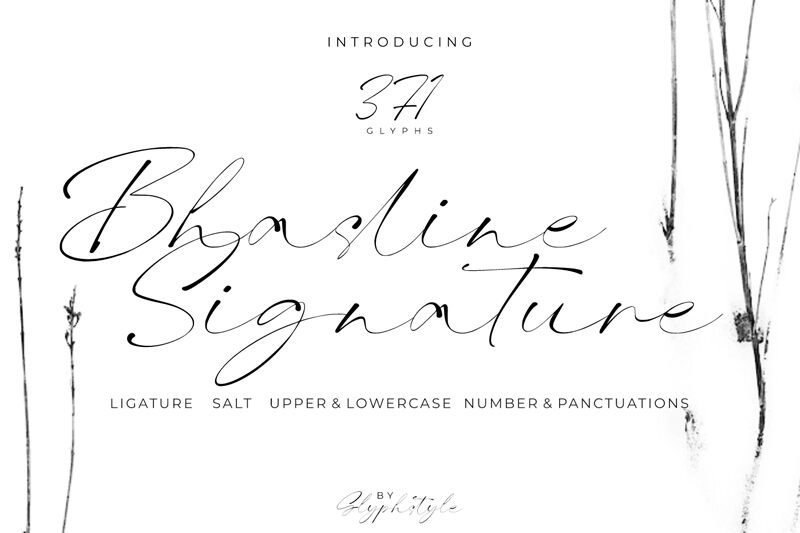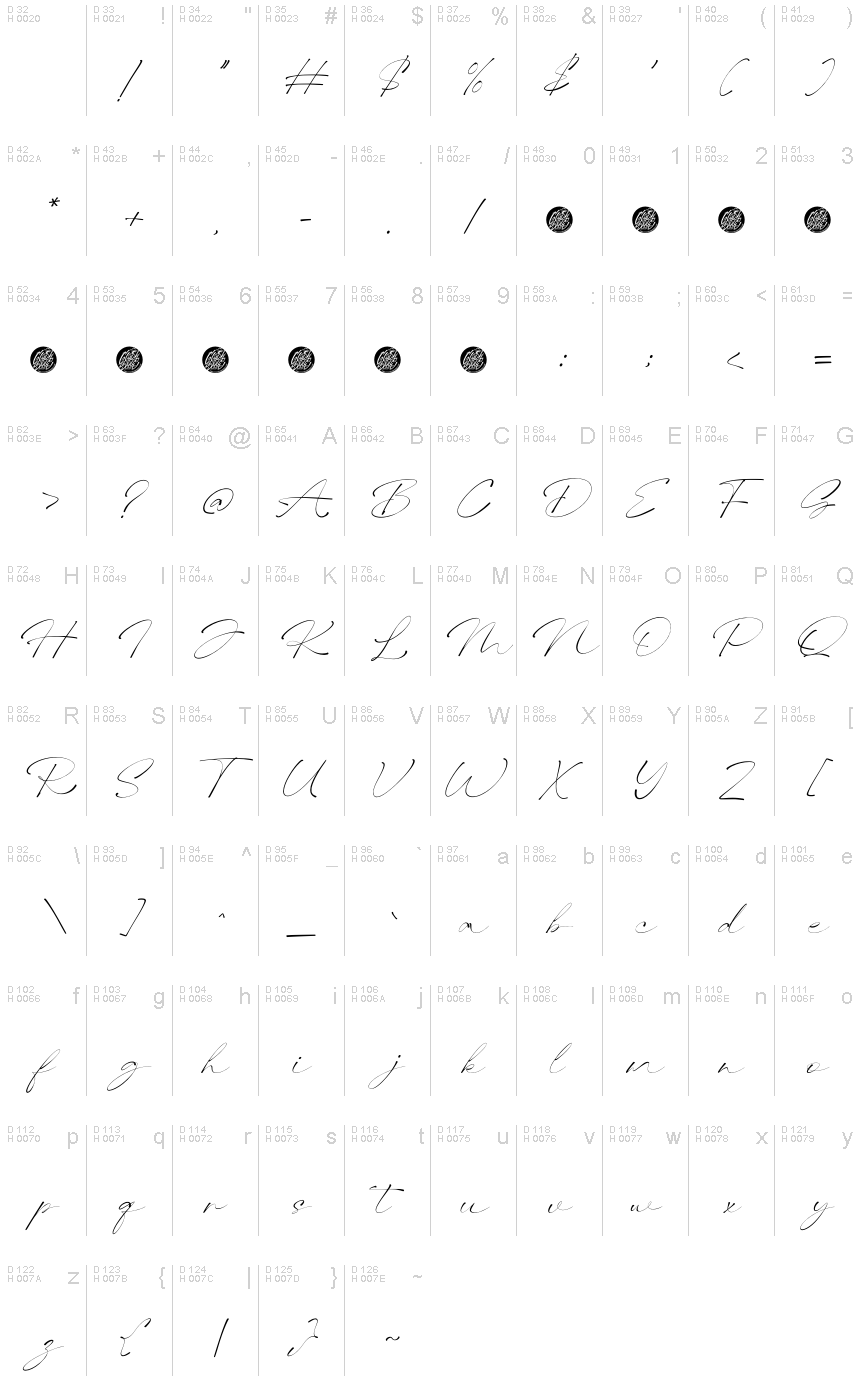
Bhasline Demo
Bhasline, a handwritten font crafted by Glyphstyle, exudes a captivating charm with its light, flowing strokes. This alluring typeface seamlessly blends the organic beauty of cursive with a refined, artistic flair. Each letter emanates a sense of individuality, creating a visually captivating and emotive impression. Bhasline's graceful curves and delicate brush-like strokes evoke a sense of warmth and authenticity, making it a delightful choice for projects seeking a personal, handcrafted aesthetic.
This versatile font's characteristics make it a compelling option for a wide range of design applications. Bhasline's fluid, expressive nature lends itself beautifully to branding, packaging, and editorial design, where its distinctive personality can truly shine. Additionally, its light weight and legibility make it a suitable choice for digital interfaces, invitations, and promotional materials, allowing for a touch of elegance and personality to be infused into the final product.